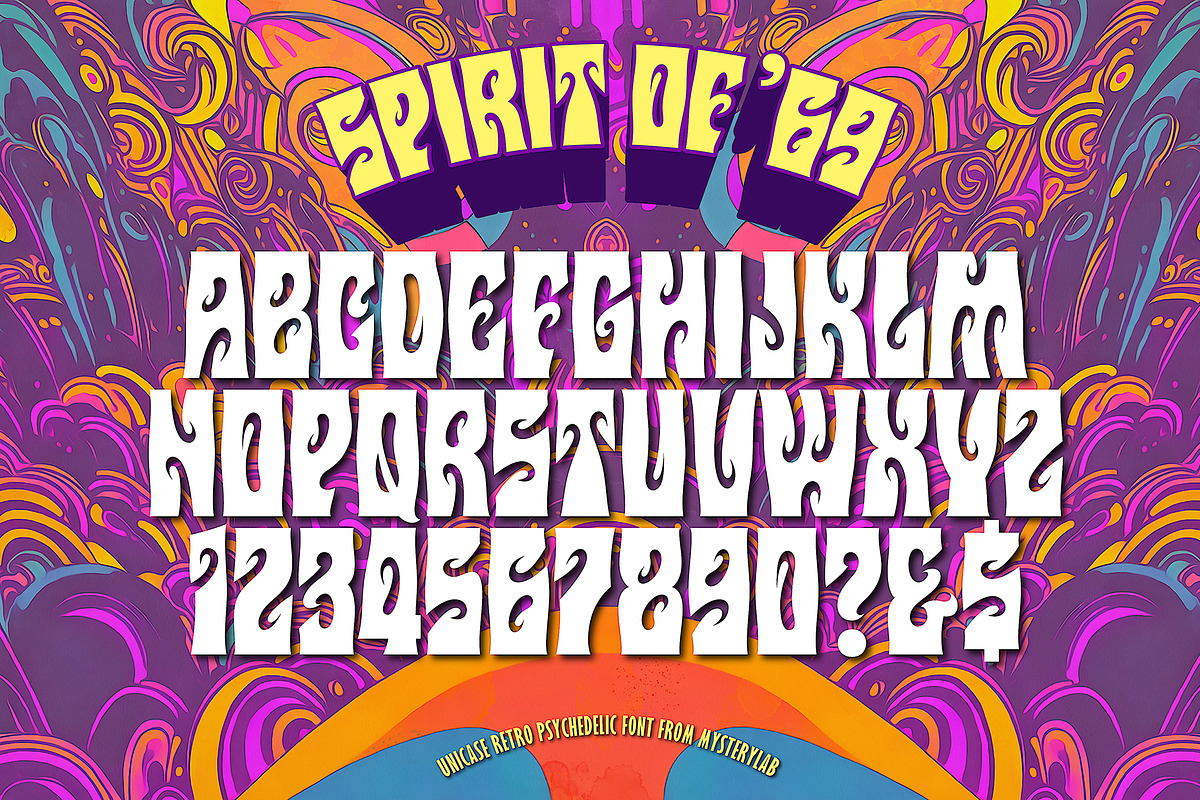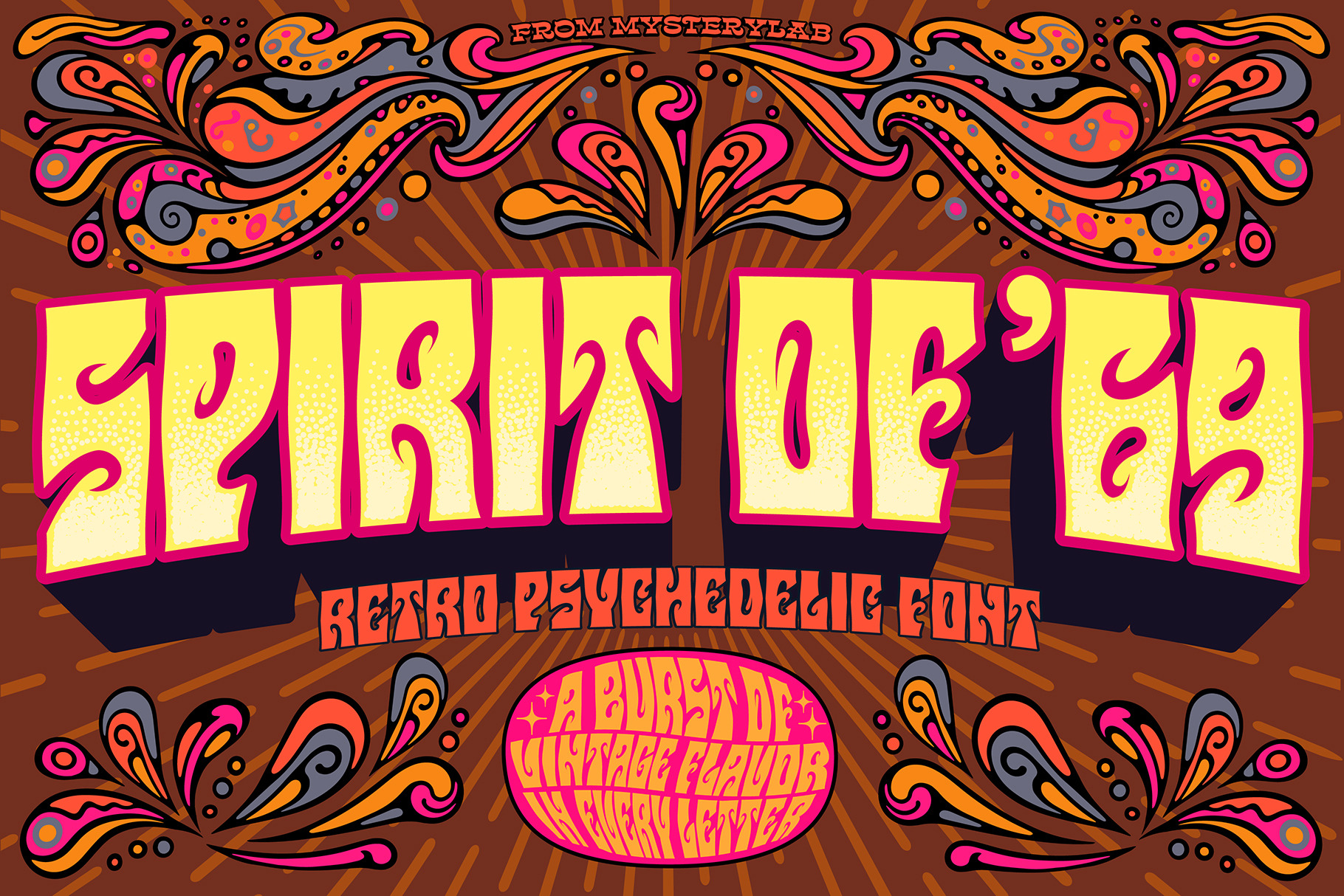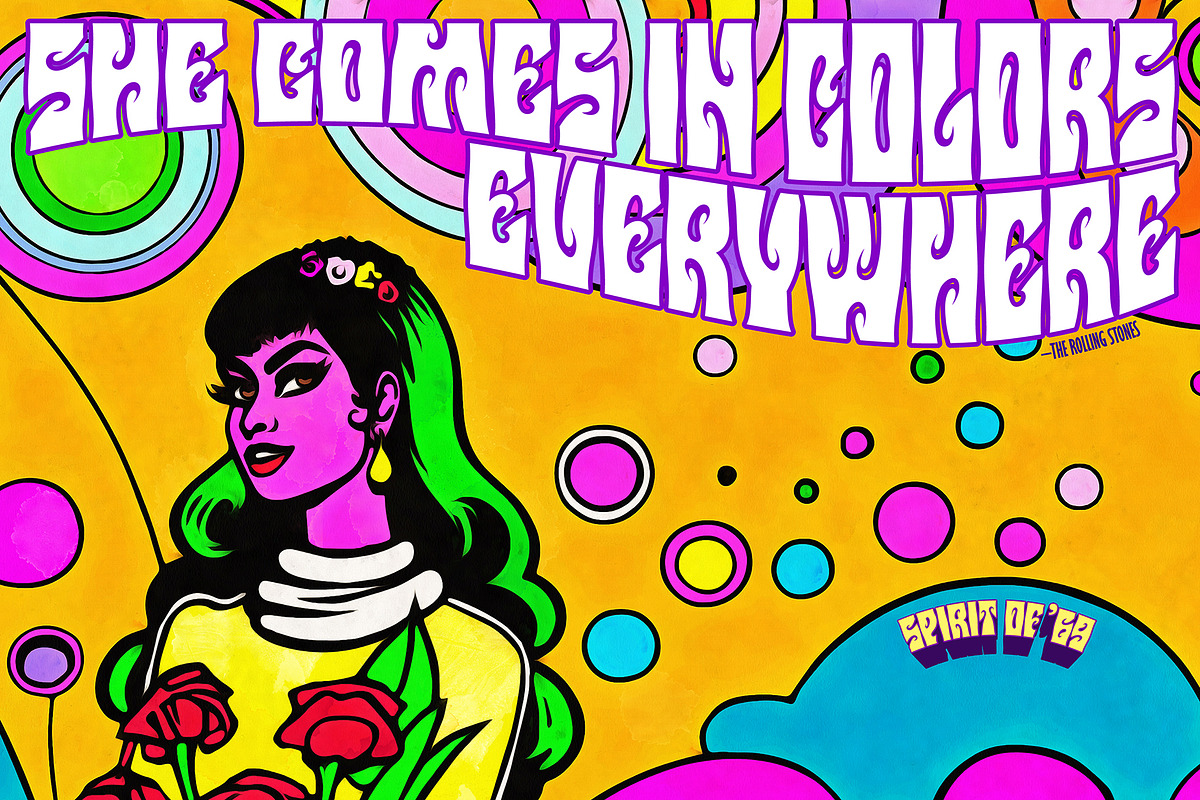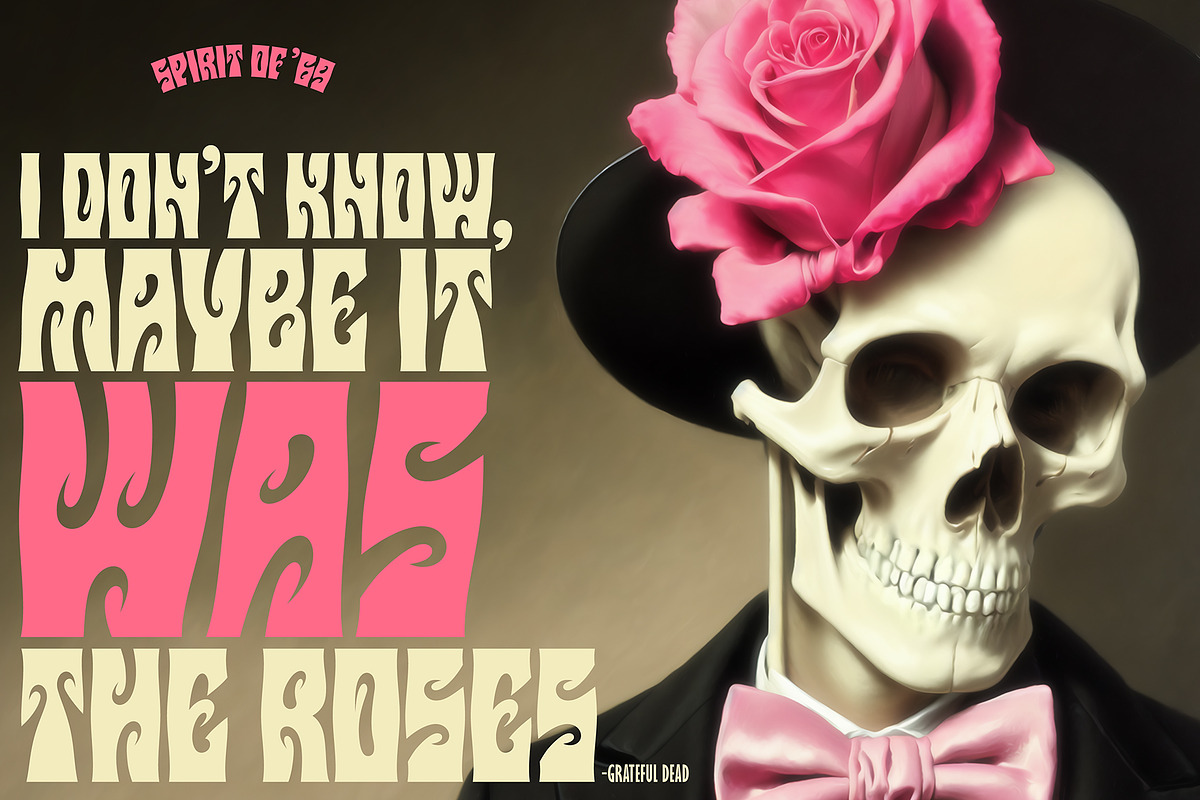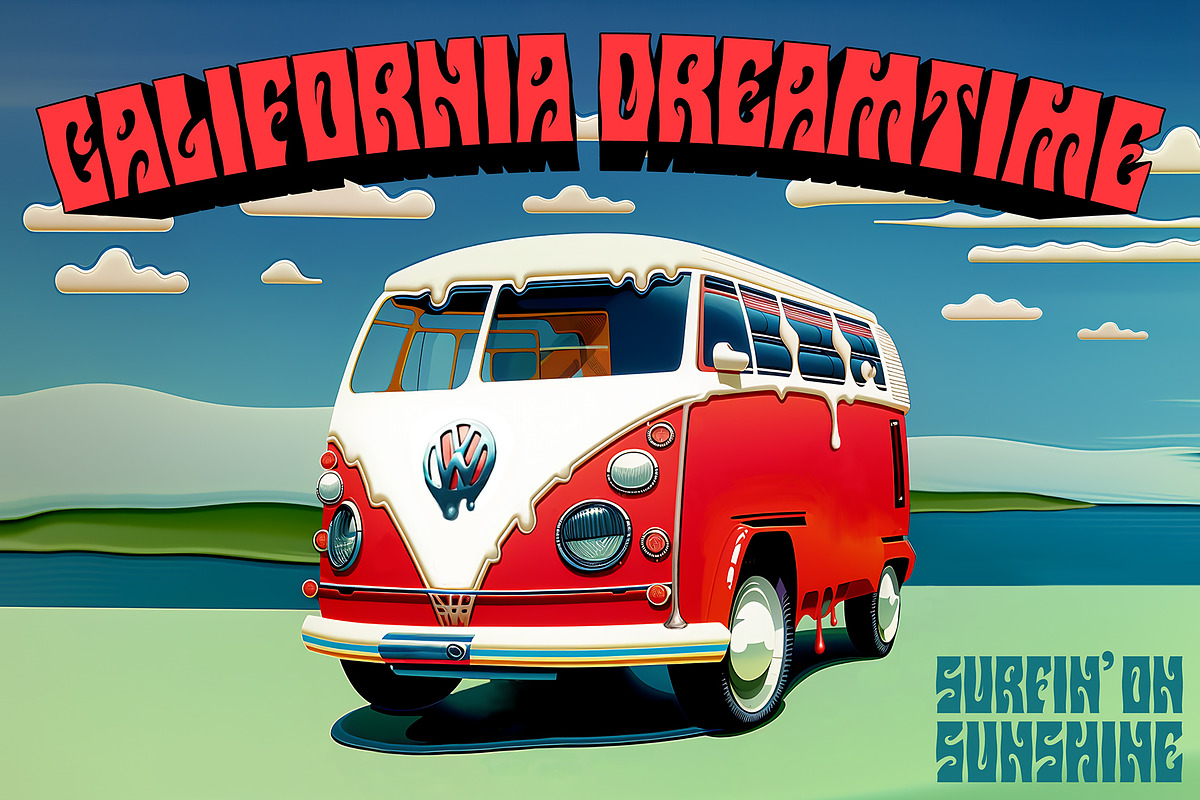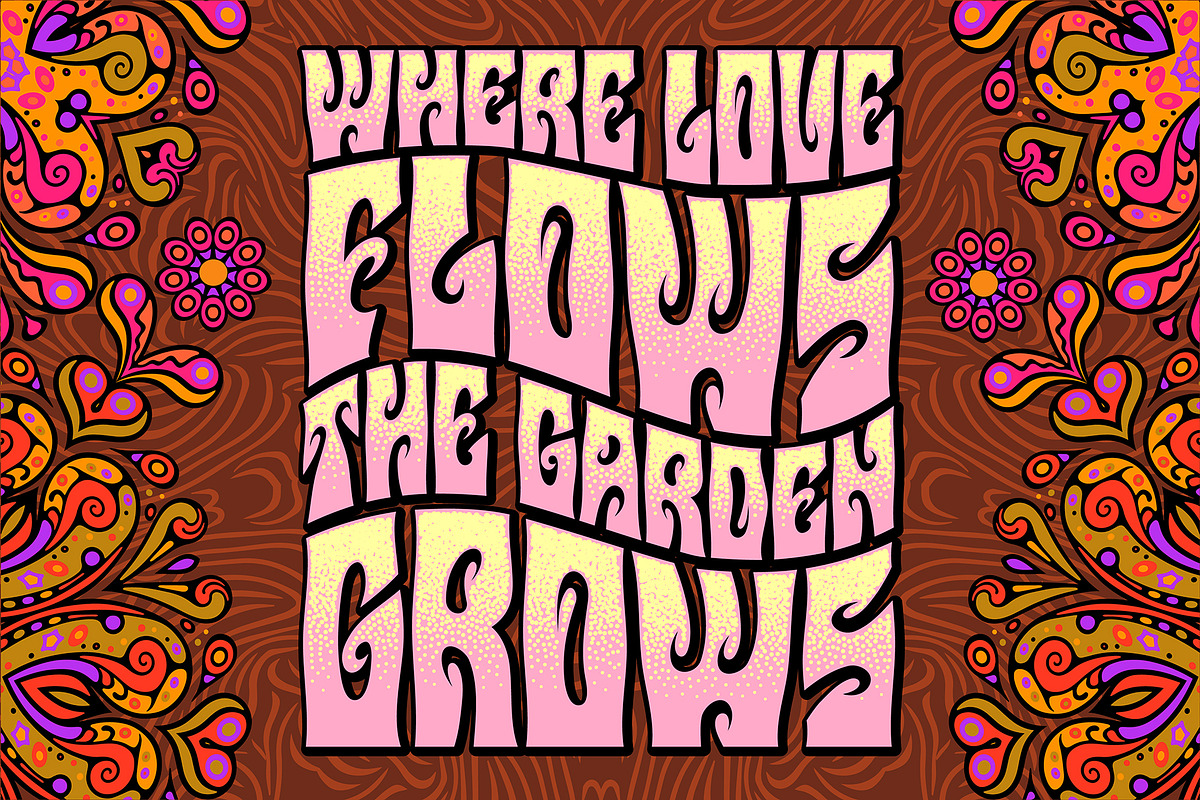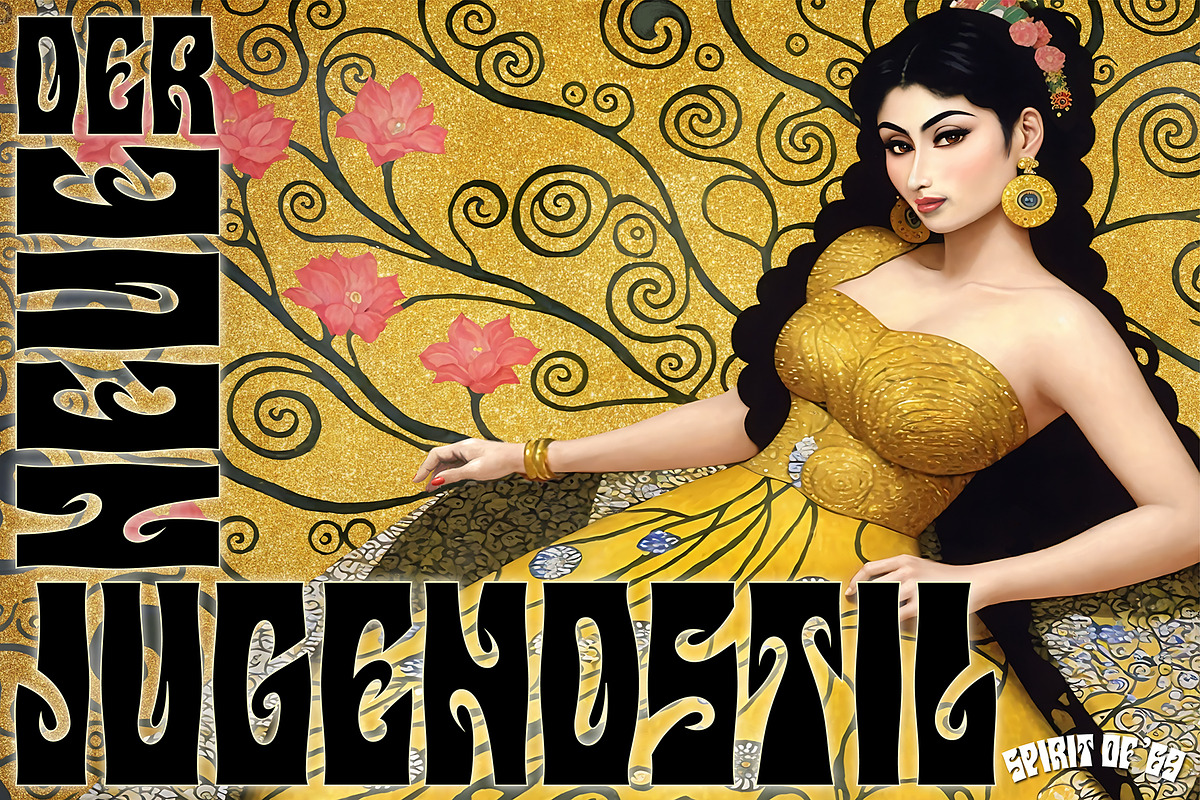
Spirit of ’69 Font
Here's a lively new take on the swirly psychedelic type we all know and love, Spirit of '69 brings in some subtle dimensions of waviness to the vertical strokes, upslanted horizontal strokes, and alluring paisley shapes formed out of the negative spaces. This is a unicase font, in the grand tradition of the Art Nouveau lettering of the early 20th century, and the melty groovy fonts of the 1960s. Lots of fun and beautiful too!